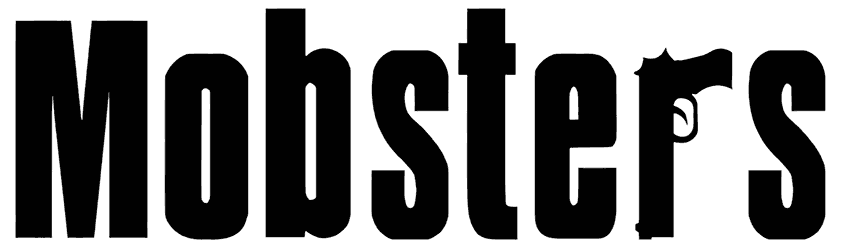
Mobsters Font
Mobsters also known as Sopranos is a serious movie font that provides aesthetics without losing its solidity. So, it shares a vibe of dread, excitement, or drama with the customers and easily convinces them to follow all of your visual content. Also, it can be used as a mafia font in a wide set of editorial projects like video game posters, stickers, branding, or stationery.